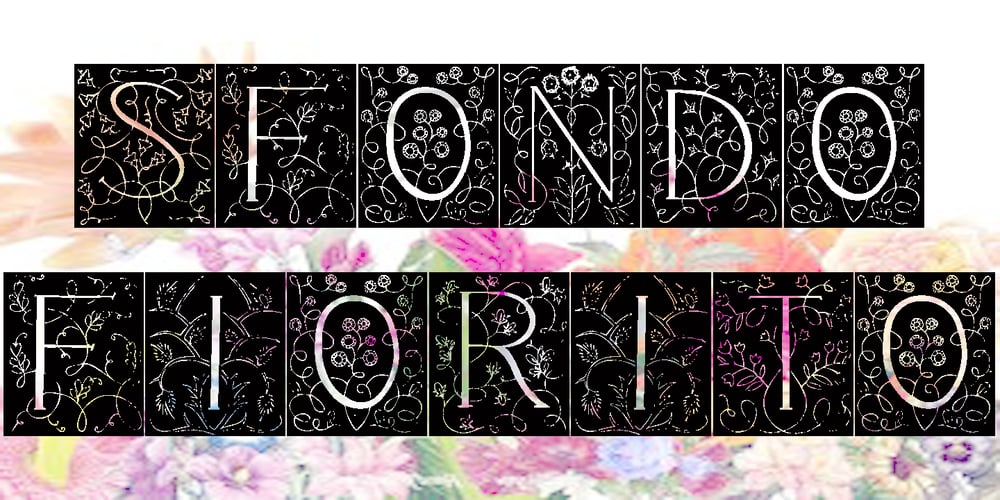
Sfondo Fiorito
Sfondo Fiorito font
Sfondo Fiorito Font Family was designed by Jose Jimenez and published by Celebrity Fontz. Sfondo Fiorito contains 1 styles and family package options. Sfondo Fiorito is a digital revival of an antique flourished alphabet. Each letter is surrounded by a different beautiful flower or plant design on a rectangular black background. Includes many accented characters.